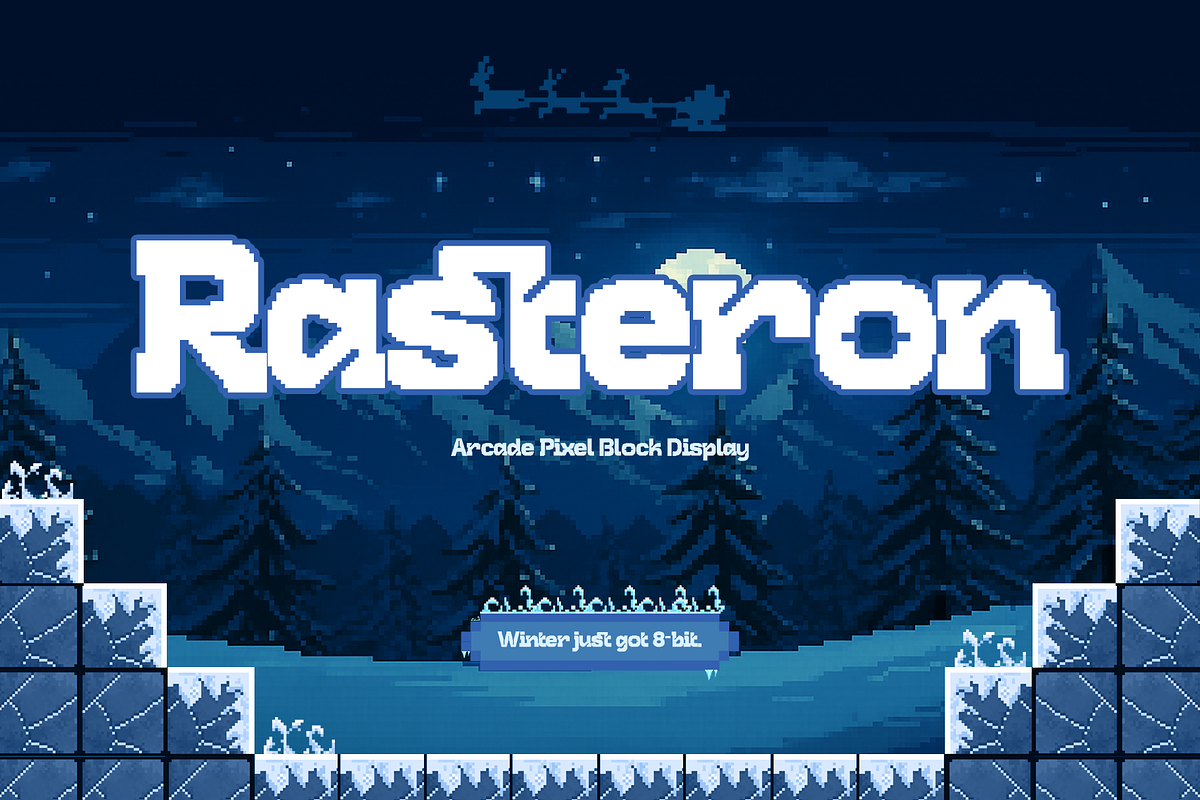
Rasteron – Pixel Display Font
Rasteron – Pixel Display Font is a professionally designed typeface that delivers clarity, structure, and consistent performance across various design applications. Rasteron is a retro arcade-inspired pixel display font that brings festive energy to your creative projects. Crafted on an 8×8 grid, its bold blocky style offers nostalgic charm with modern legibility. Perfect for pixel art, video game graphics, posters, Christmas packaging, and retro branding. Rasteron turns celebration into 8-bit style with clean geometry and joyful energy. Let your winter designs level up with pixel-perfect vibes.